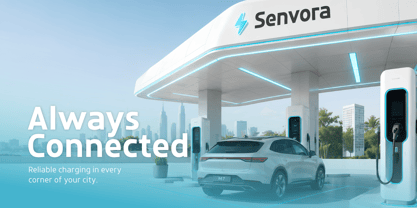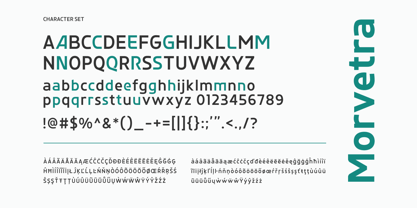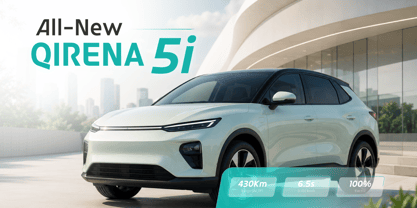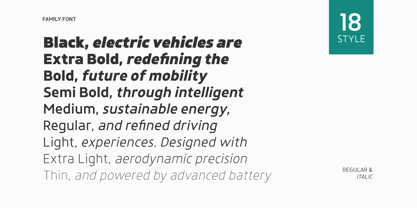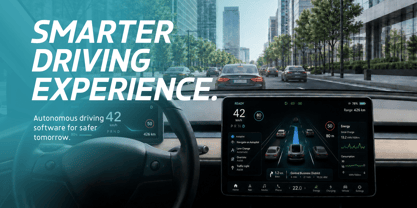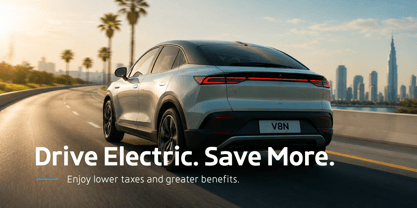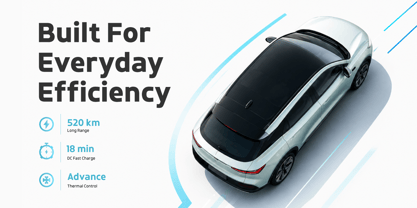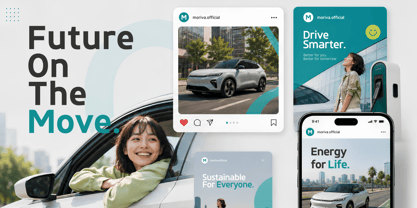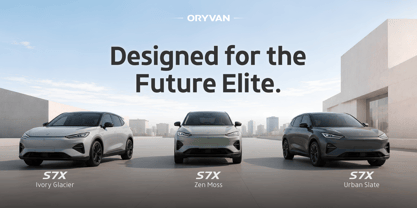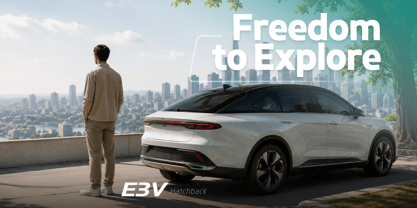
Morvetra TM
by Twinletter
The Morvetra TM Font Family was designed by Rozikan and published by Twinletter. Morvetra TM contains 18 styles and family package options.
Morvetra TM - Electric Vehicle Sans is a modern sans serif typeface crafted to embody the future of electric mobility, sustainable energy, and automotive innovation. Featuring clean, aerodynamic, and futuristic letterforms, this font delivers a progressive and premium appearance that perfectly aligns with electric vehicle brands and technology-driven companies. Its minimalist yet confident design reflects efficiency, intelligence, and the evolution of modern transportation.
This typeface is ideal for electric vehicle branding, EV startups, charging infrastructure companies, automotive websites, sustainability campaigns, mobility platforms, technology presentations, and innovative corporate identities. The balanced structure ensures excellent readability while maintaining a sophisticated and forward-thinking visual presence across digital and print applications.
With multiple font families, multilingual support, ligatures, and stylistic alternates, Morvetra TM offers the versatility needed to create impactful and professional brand experiences. It is an excellent choice for businesses shaping the future of electric transportation, renewable energy, and smart mobility solutions.
Designers: Rozikan Rozikan
Foundry: Twinletter